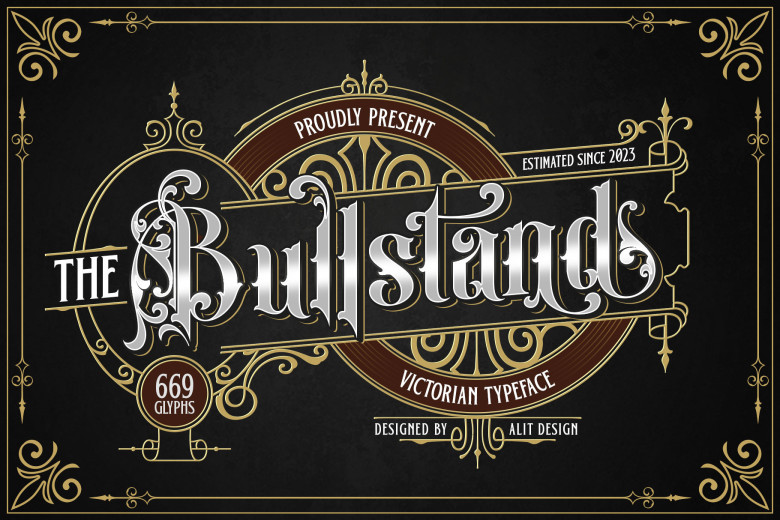
Bull Stand Font
The “Bull Stand Victorian” font is an ornate and distinctive typeface evoking elegance and complexity of Victorian Era design. This font captures its craftsmanship and attention to detail which were hallmarks of Victorian design; inspired by elaborate typography and decorative elements popular during this era.
Bull Stand Blackletter Font